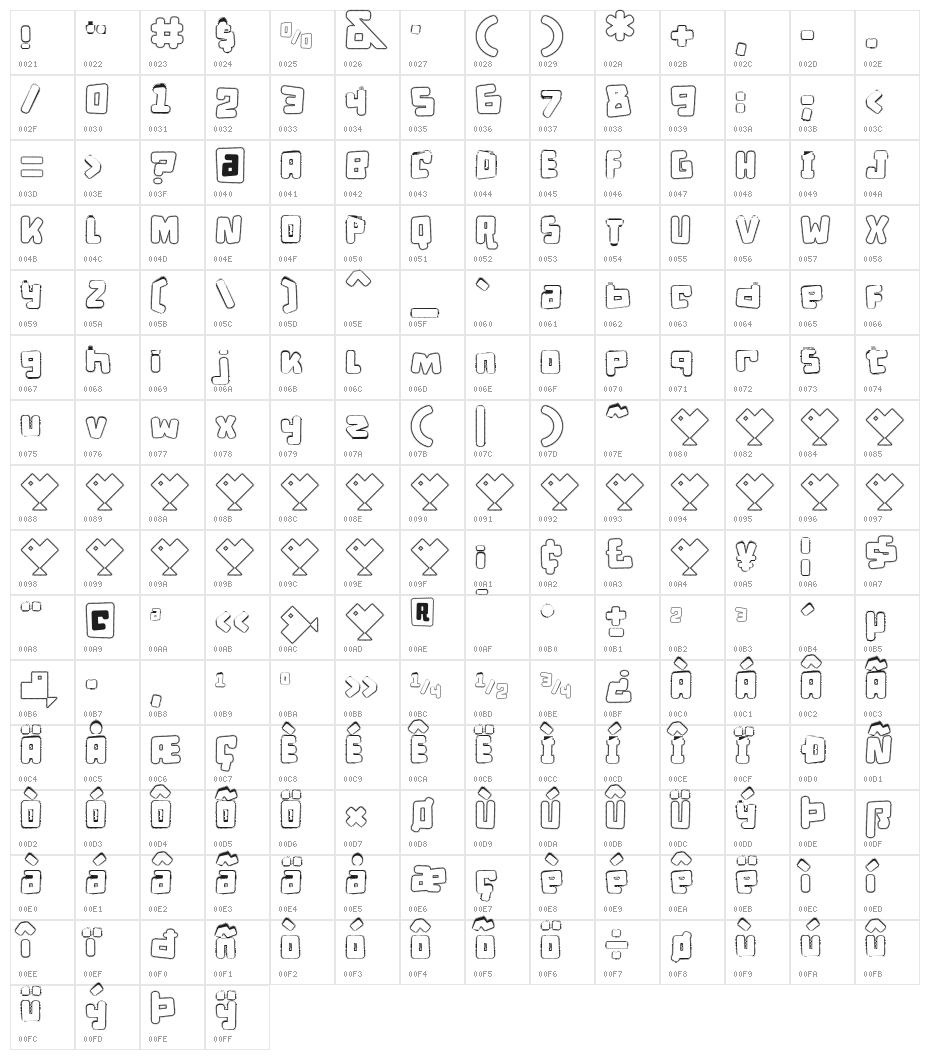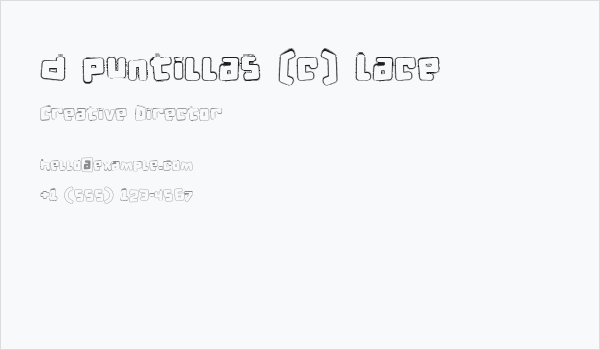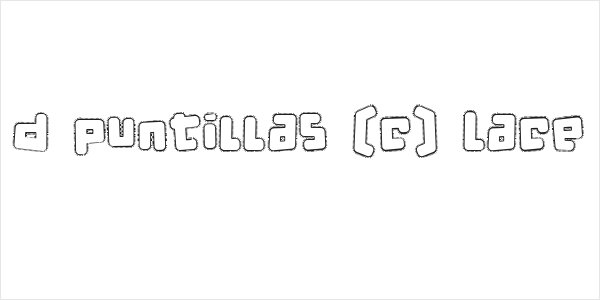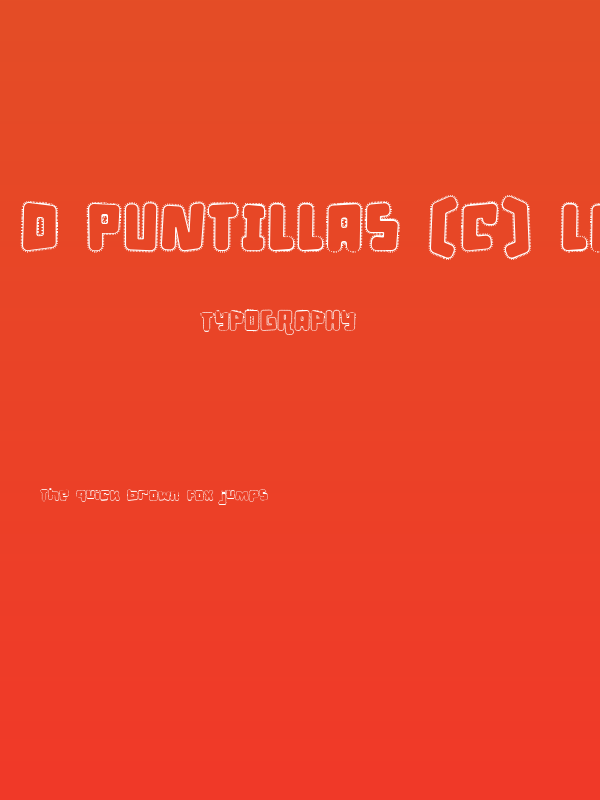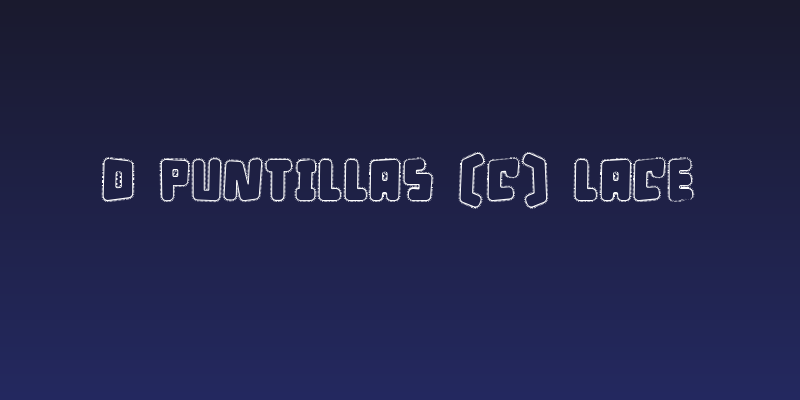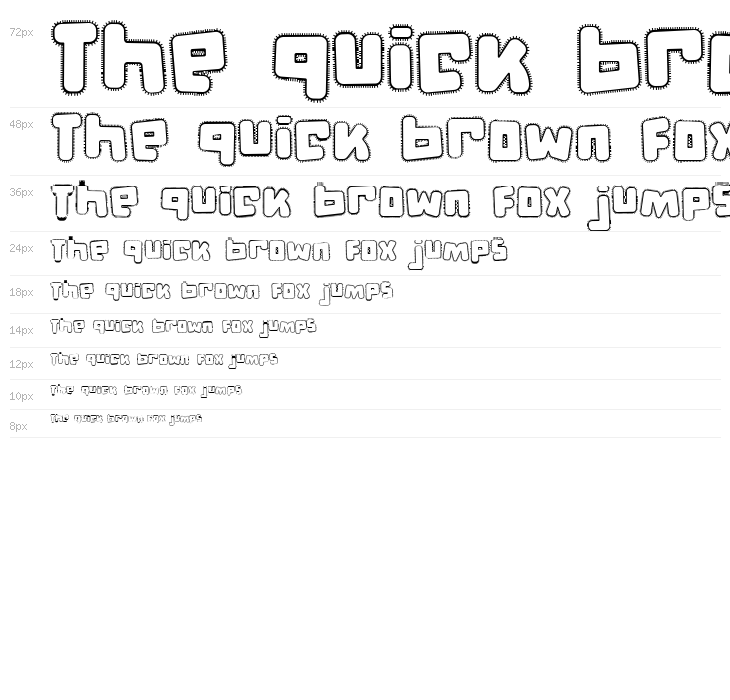
d puntillas [c] Lace Font
d puntillas [c] Lace Description
This playful and decorative font features bold, rounded characters with a unique lace-like border that adds a whimsical touch. Each letter and number is outlined with a dotted pattern, creating a textured appearance that stands out. The font maintains a consistent thickness throughout, ensuring readability while offering a distinctive style. Its charming and fun design makes it suitable for creative projects that require a touch of personality and flair.